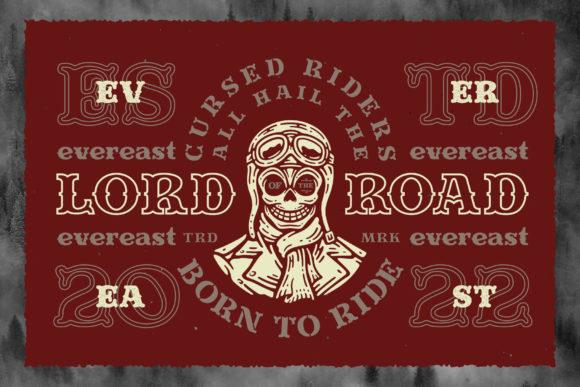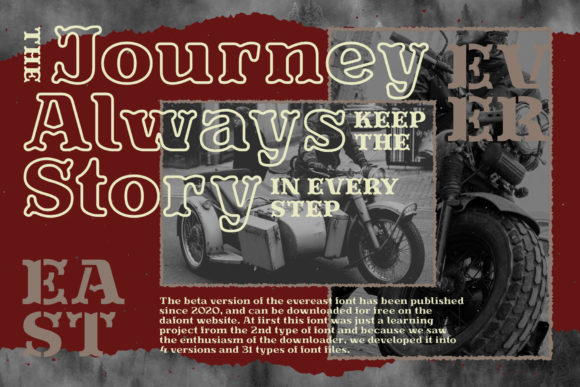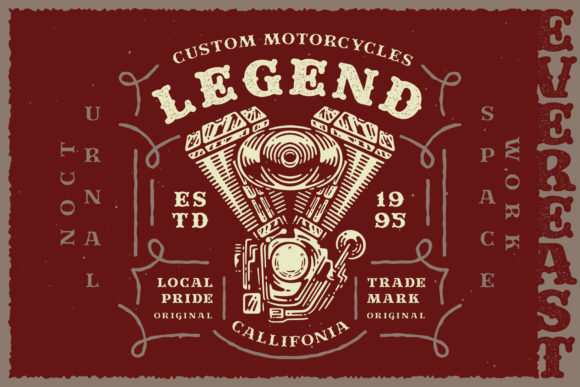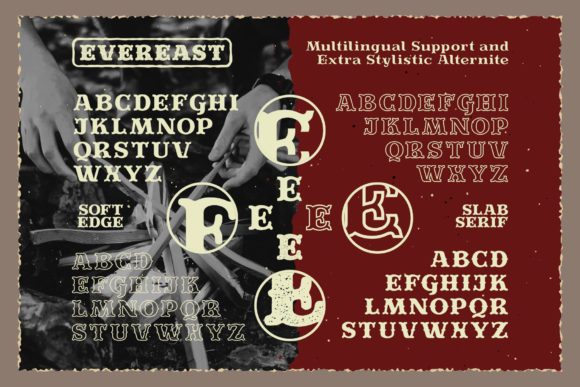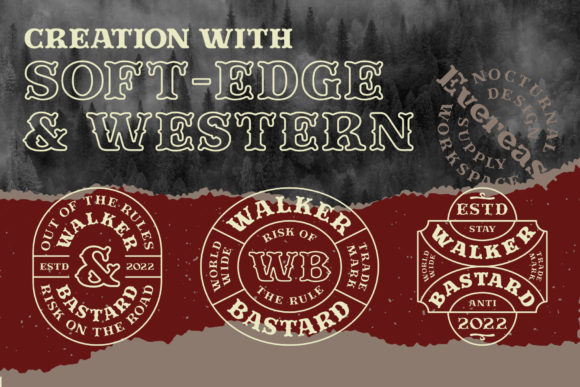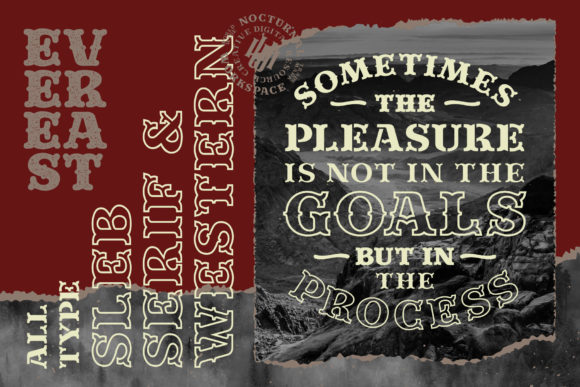
Unlock the Power of Retro Cool: Introducing the Evereast Collection Font
Remember the thrill of stumbling upon a vintage poster or a retro-themed cafe that instantly transports you to a bygone era? That’s the magic of the Evereast Collection Font – a western-inspired, assertive, and retro-styled slab serif font that’s about to revolutionize your branding projects.
Designed to evoke the spirit of the Wild West, the Evereast Collection Font is perfect for logos, t-shirt printing, creative products, and more. Its versatility and unique aesthetic make it a valuable asset for designers looking to add a touch of nostalgia and sophistication to their work.
Evereast Collection Font Key Features
- Font Family: Evereast Collection Font is a comprehensive font family that includes multiple styles and weights, providing a wide range of options for designers and typographers.
- Character Set: The font family includes over 500 characters, including letters, numbers, punctuation marks, and special characters, making it suitable for multilingual projects.
- Resolution and Size: The font is designed to work well at various resolutions, including low-resolution displays and high-resolution prints, with font sizes ranging from 8pt to 120pt.
- Unique Characteristics: Evereast Collection Font features a unique blend of traditional and modern design elements, with subtle flair and sophistication, making it perfect for luxury brands, high-end publications, and premium packaging.
Evereast Collection Font Review
I recently had the chance to work with the Evereast Collection Font, and I must say it’s a mixed bag. Here’s what I think:
- The font’s elegant, modern design makes it perfect for luxury branding and high-end projects.
- The font family includes a range of weights and styles, offering flexibility and versatility.
- The font’s readability is excellent, making it suitable for large blocks of text.
- The font’s limited script and symbol support can be a hindrance for certain projects.
- The font’s OpenType features are not as extensive as some other fonts in the market.
Overall, the Evereast Collection Font is a solid choice for designers looking for a high-end, elegant font. While it has some limitations, its strengths make it a great option for luxury branding and high-end projects. However, it may not be the best choice for projects requiring extensive script or symbol support.
Use the Evereast Collection Font to add a touch of elegance and sophistication to your designs.
Pair the Evereast Collection Font with other elegant fonts to create a unique and stylish look.
Use the Evereast Collection Font for:
Business cards and marketing materials
Restaurant and event menus
Any design where you want to add a touch of elegance
Alternatives to Evereast Collection Font for Designers
Playfair Display is a high-end, luxurious serif font perfect for creating elegant and sophisticated designs. It features intricate details and ornate flourishes, making it ideal for use in branding, invitations, and high-end publications. Compared to Evereast Collection Font, Playfair Display has a more refined and classic feel, with a wider range of weights and styles available.
Great Vibes is a beautiful, cursive script font that adds a touch of elegance and sophistication to any design. It features flowing lines and organic shapes, making it perfect for use in branding, packaging, and advertising. Compared to Evereast Collection Font, Great Vibes has a more relaxed and casual feel, with a wider range of styles and weights available.
Is the Evereast Collection optimized for digital use?
Yes, the Evereast Collection is carefully crafted to perform well in digital environments. The font features advanced hinting and optimization techniques to ensure smooth rendering on screens, from low-resolution devices to high-end displays.